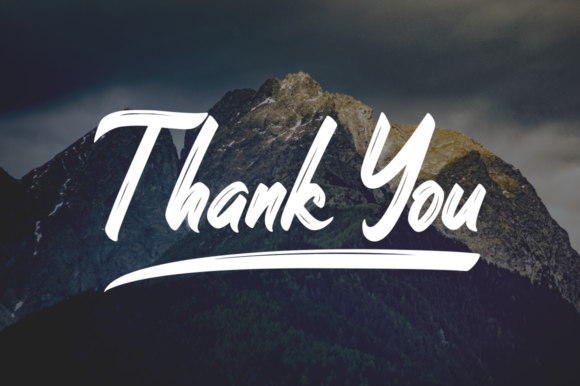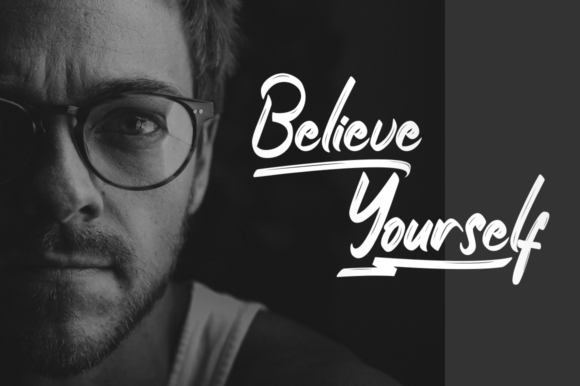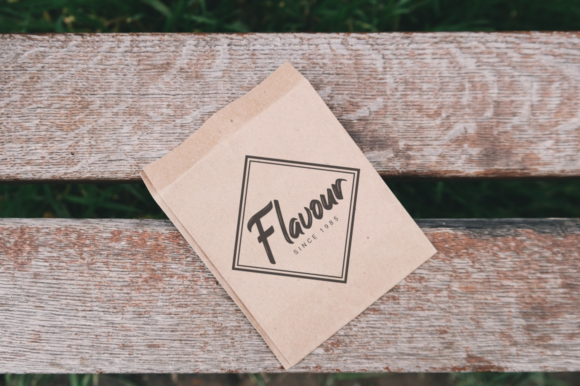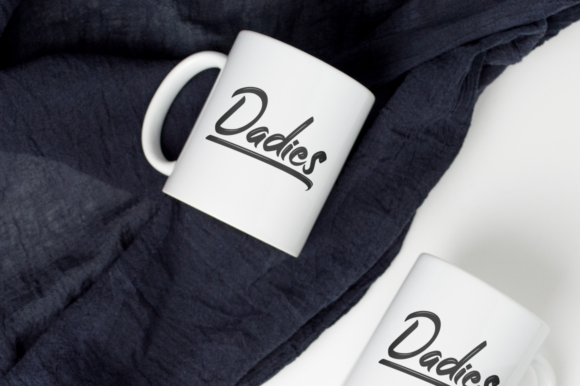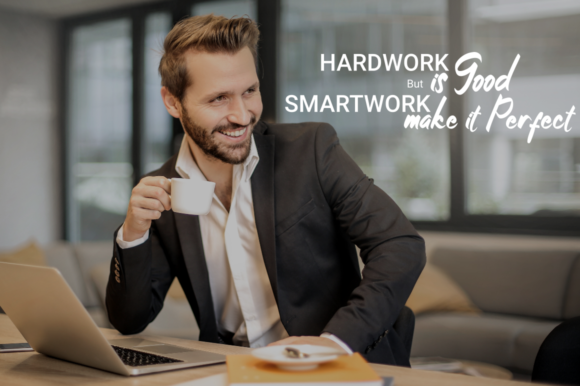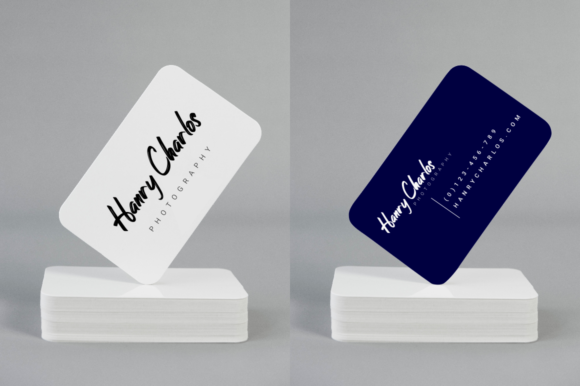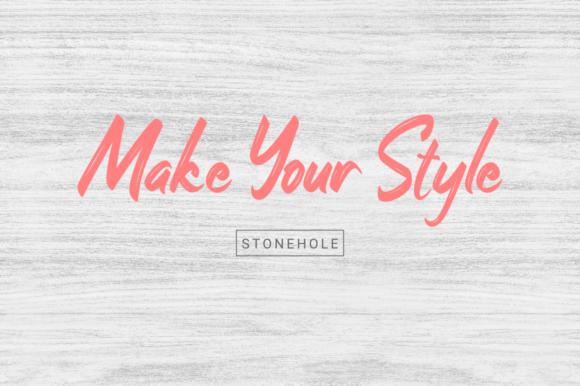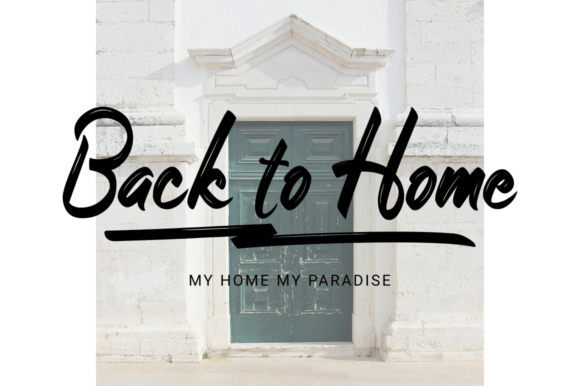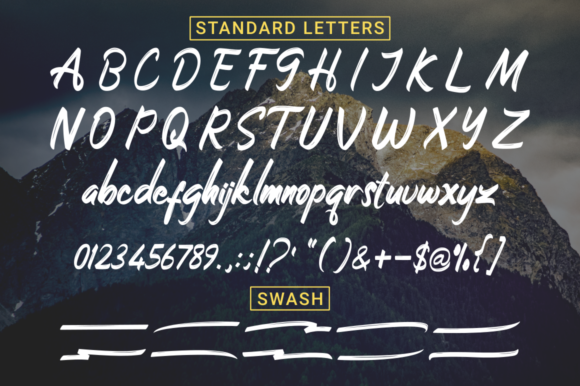
Stonehole Font
About Stonehole Font
Stonehole is a textured and timeless hand-lettering font. With bold strokes and swashes, it will easily turn any design project into a stand-out!